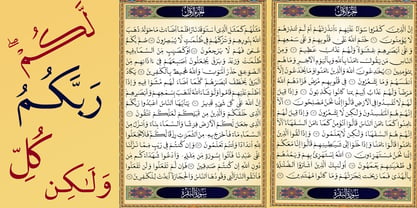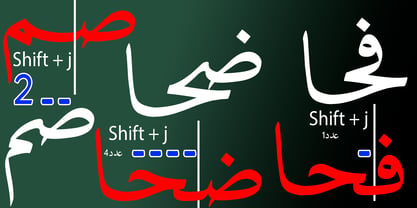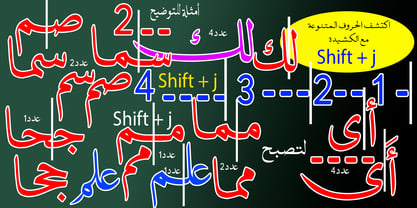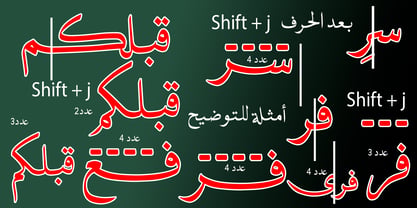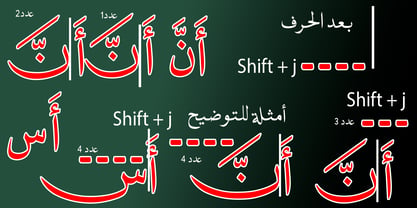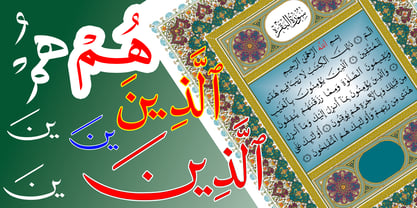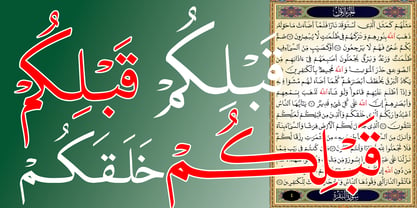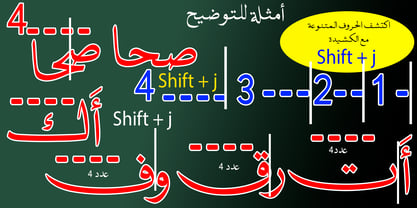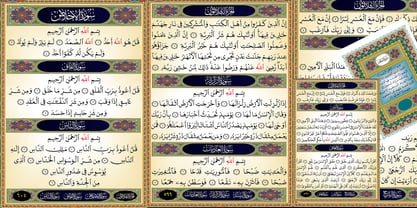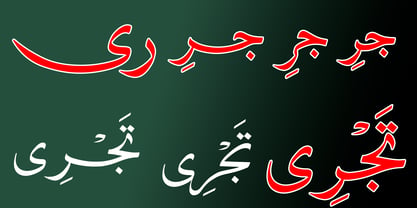
TE HAFS Pro Tharwat Emara
by Tharwat Emara
The TE HAFS Pro Tharwat Emara Font Family was designed by Tharwat Mohamed Emara and published by Tharwat Emara. TE HAFS Pro Tharwat Emara contains 1 styles. More about this family
Te Qur’anic Naskh is a meticulously crafted typeface designed for the precise and elegant rendering of the Holy Qur’an text, following the Hafs ‘an ‘Asim narration. Rooted in the classical Naskh script tradition, this font emphasizes accuracy in glyph construction, diacritic placement, and harmonious composition. Developed to ensure exceptional readability and visual clarity across both print and digital platforms, it preserves the spiritual and aesthetic integrity of Qur’anic typography. This typeface is an ideal choice for publishers, digital Qur’an applications, Islamic institutions, and designers seeking high-quality Qur’anic text rendering. **Features:** - Full support for Qur’anic text (Hafs ‘an ‘Asim) - Highly accurate diacritics and mark positioning - Advanced OpenType features - Balanced and readable design - Optimized for print and screen use **Use Cases:** - Printed Qur’an editions - Qur’an apps and digital platforms - Islamic publishing and design - Educational and research materials This typeface stands out for its commitment to clarity and beauty, making it a valuable asset for any project involving Qur’anic text.
Designers: Tharwat Mohamed Emara
Foundry: Tharwat Emara